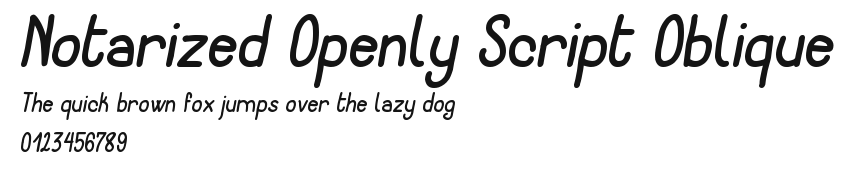
Notarized Openly Script Oblique Preview
• Font Name: Notarized Openly Script Oblique
• Font ID: Notarized Openly Script Oblique:Version 1.00
• Full Font Name: Notarized Openly Script Oblique
• Version: Version 1.00 September 23, 2016, initial release
• PostScript Name: NotarizedOpenlyScriptOblique
• Character Count: 304
• Designer: This font is an original work of southype dot com
• Description: Notarized Openly Script Oblique St © (Southype). 2016. All Rights Reserved www.southype.com free for personal use
About Notarized Openly Script Oblique.ttf
Notarized Openly Script Oblique.ttf is a modern, elegant sans-serif font designed for ultimate readability and visual harmony. Perfect for branding, headlines, web design, and print materials.